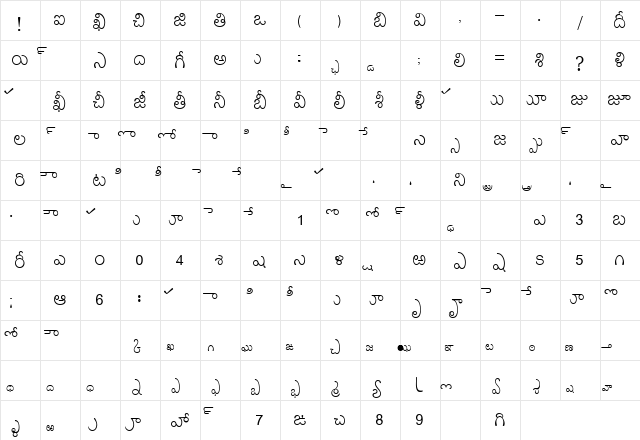
vaartha Regular
Design Context for vaartha Typeface
vaartha is a composed and adaptable typeface that performs quietly and consistently across a wide range of design contexts.